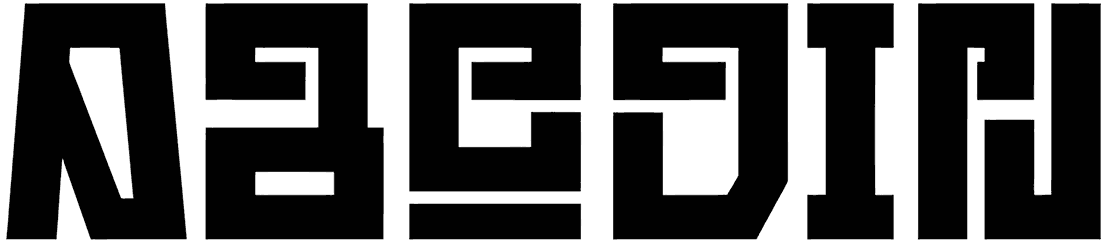
Abodin Font
If you want to have a cool letterform that has a futuristic visual, this alien font could be an interesting item for you. You can adorn your designs like a science fiction movie poster or anything else you want with this futuristic font and make them mesmerizing. The Abodin font could take your design to a higher level and make it memorable.